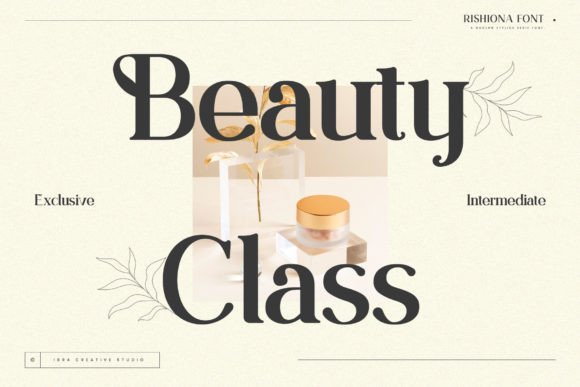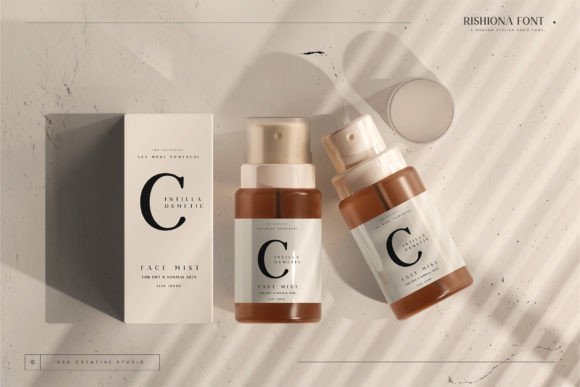
Rishiona Font is a modern and stylish serif font that beautifully blends contemporary design with timeless elegance. Each letter has been carefully designed to maintain balance and clarity, making it ideal for both digital and print use. Its clean lines and smooth curves create a professional look that still feels fresh and creative.
What sets Rishiona apart is the detail in its serifs—small yet refined strokes that give each character a polished appearance. These subtle features add a classic charm while keeping the overall design modern. Whether you’re creating branding, editorial layouts, or social media content, Rishiona brings a graceful and confident touch.
This font isn’t just about readability—it’s a visual statement. Rishiona Font shows how tradition and innovation can work hand in hand, offering a typeface that feels both familiar and new. It’s perfect for designers who want to convey style, elegance, and clarity in one beautiful font.